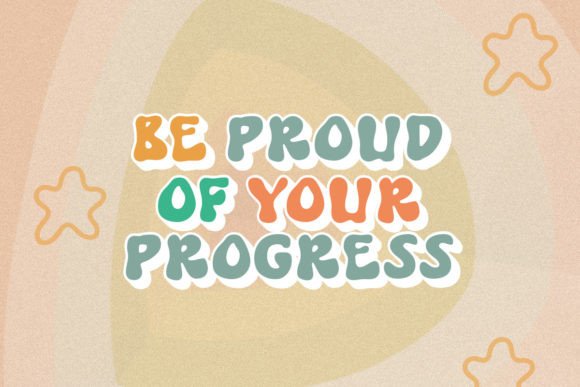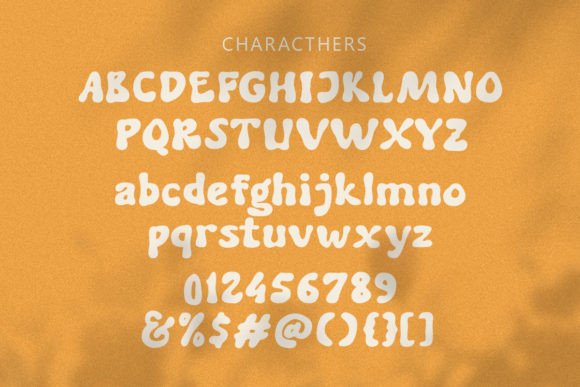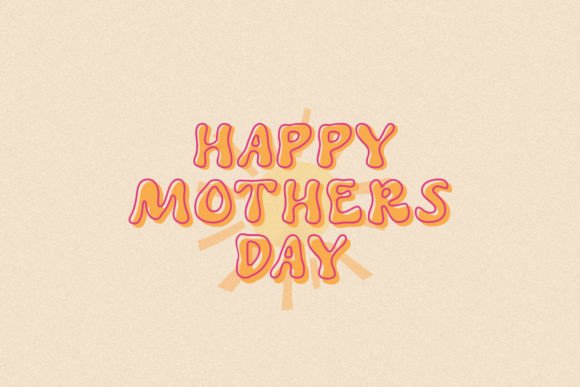
Introduction to Grow Fine Font
Grow Fine is layered fonts that contains regular, outline and extrude.
With combining three style, you can get 3D looks text You can use this font for so many project, such as poster, t-shirt design, or project that needs retro vibes.